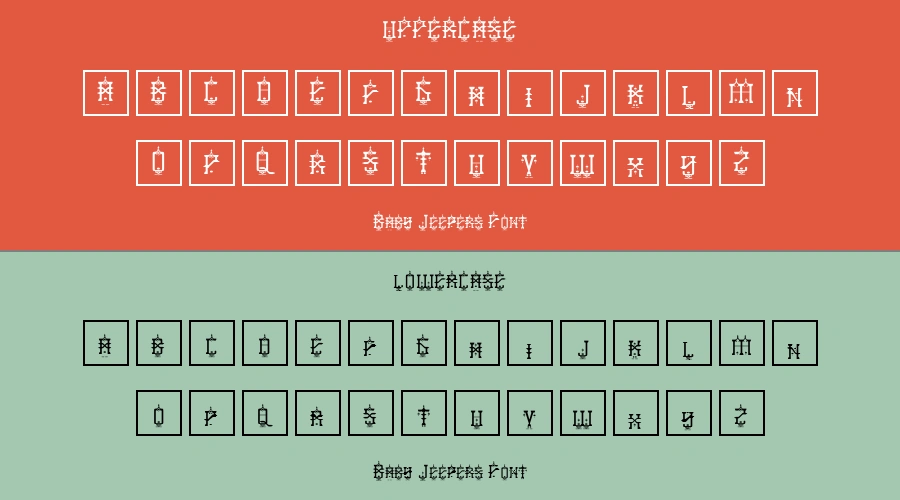
About Baby Jeepers Font
Designed with precision, Baby Jeepers Font merges tapered strokes with optical harmony in every character. This versatility makes it particularly effective for historical publications, where adaptability and adaptability directly impact communication quality. Each letterform demonstrates meticulous craftsmanship.
Technical excellence shines through elements like humanist proportions and proportional figures, enhancing typographic versatility. In artistic statements settings, Baby Jeepers Font proves its worth through superior microfilm readability. The thoughtful execution of character width and market position ensures professional results.